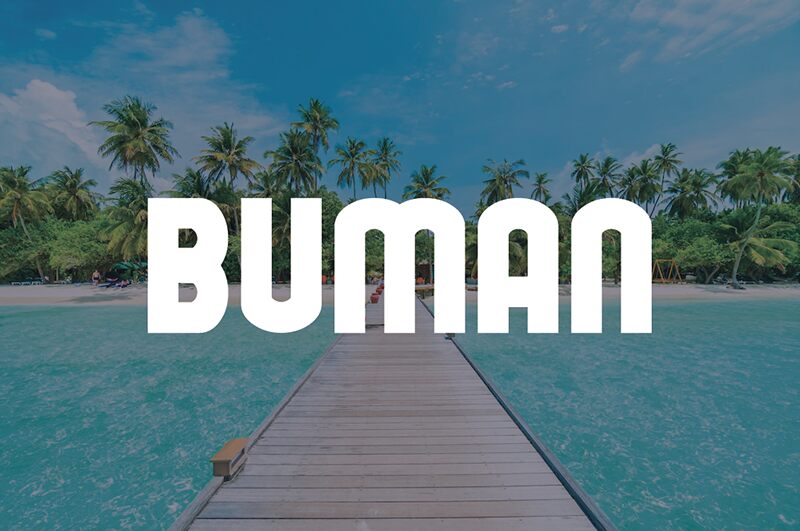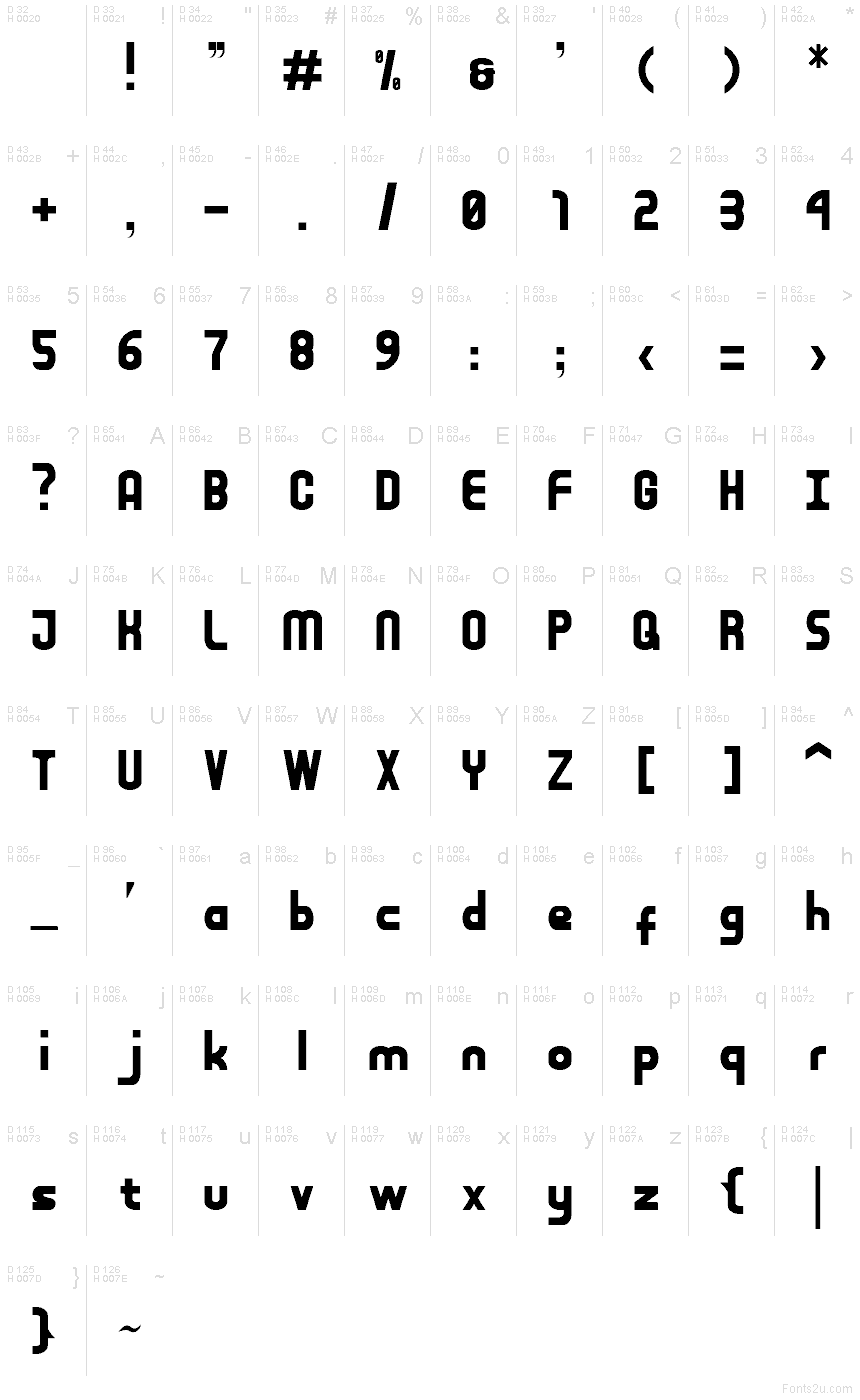
Buman Reguler
Buman font by Bharata Yoga Permana is a modern display free font with clean-cut geometric shapes. This sans serif has the aesthetic of a minimalist and futuristic design style that misses its own uniqueness. Buman doesn’t follow symmetry in its angular letterforms while some vertical or horizontal cut-offs have been added to create subtlety.